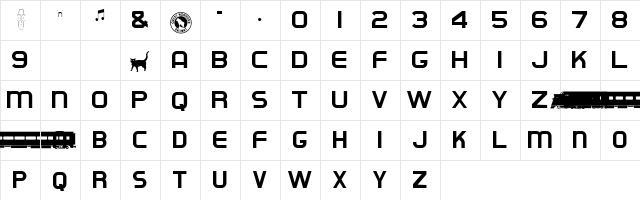
EmpireBuilder Regular
Design Context for EmpireBuilder Typeface
EmpireBuilder takes a measured approach to typography — its balanced proportions and neutral character make it a reliable workhorse for both digital and print work.